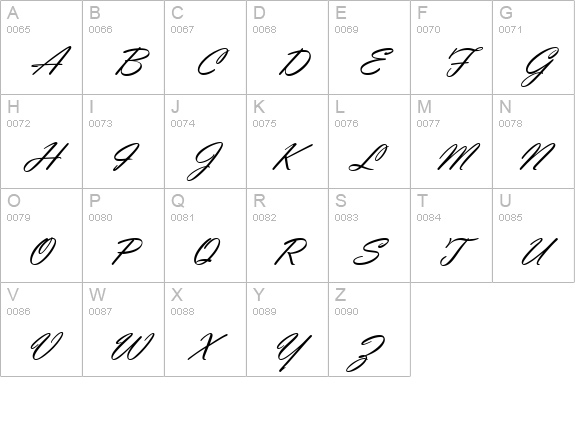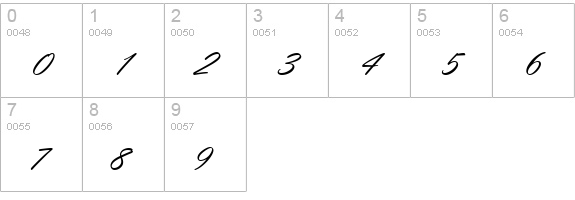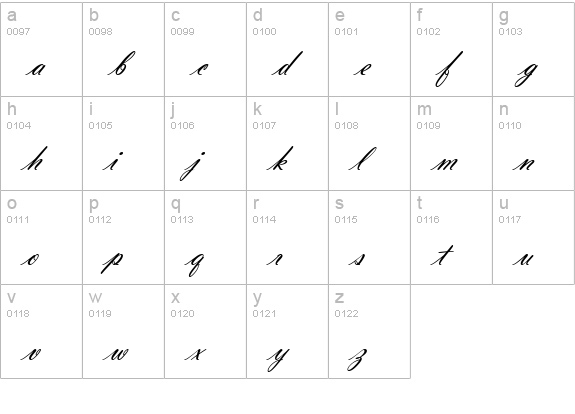
VladimirScrD Font Details
Introducing VladimirScrD font - a stunning display typeface that combines elegance and sophistication with a touch of vintage charm. With its gracefully flowing letterforms and intricate details, this font is sure to captivate and inspire. VladimirScrD font is specifically designed to add a touch of elegance to your designs, making it perfect for branding, packaging, invitations, and more. Whether you're creating a classic logo, a stylish headline, or a beautiful wedding invitation, this font will elevate your design to new heights. But what makes VladimirScrD font truly special is that it is not only visually appealing, but it is also freely available to download at FontsMarket.com. Yes, you heard it right - this high-quality font can be yours without spending a dime. It's the perfect opportunity to enhance your design projects with a stunning typeface that won't break the bank. Crafted with utmost care and attention to detail, VladimirScrD font offers a wide range of characters, including uppercase and lowercase letters, numerals, punctuation, and special symbols. Its versatility allows you to experiment and create a diverse range of visuals, from bold and impactful to delicate and refined. Once you start using VladimirScrD font, you'll quickly realize the endless possibilities it offers. Its timeless appeal and impeccable craftsmanship will make your designs stand out from the crowd, leaving a lasting impression on your audience. So, why wait? Embrace the beauty of VladimirScrD font and unleash your creativity today. Visit FontsMarket.com to download this incredible typeface for free and transform your design projects into works of art.